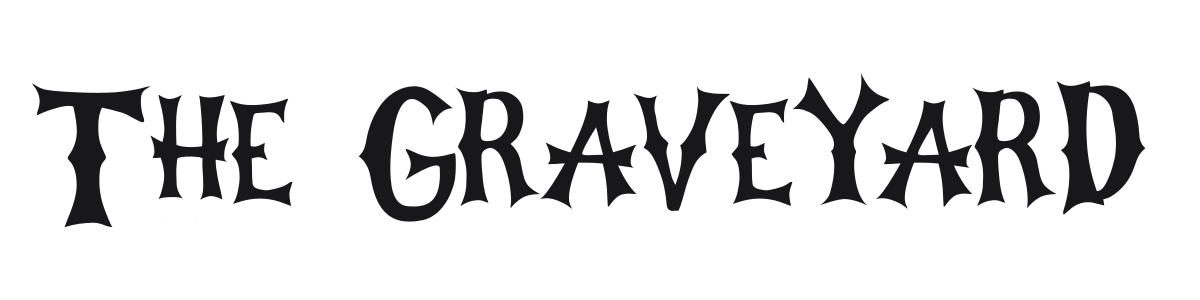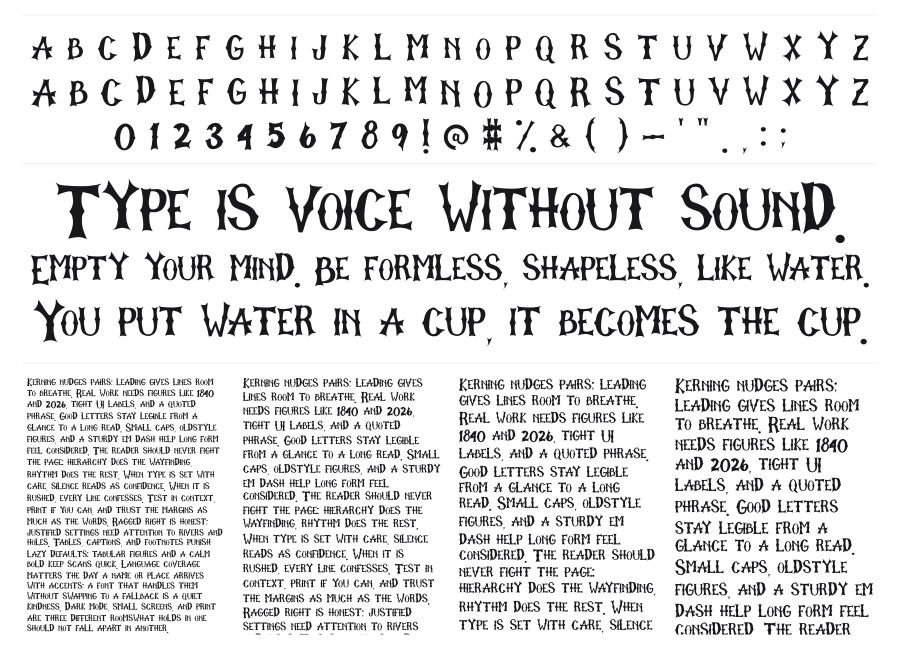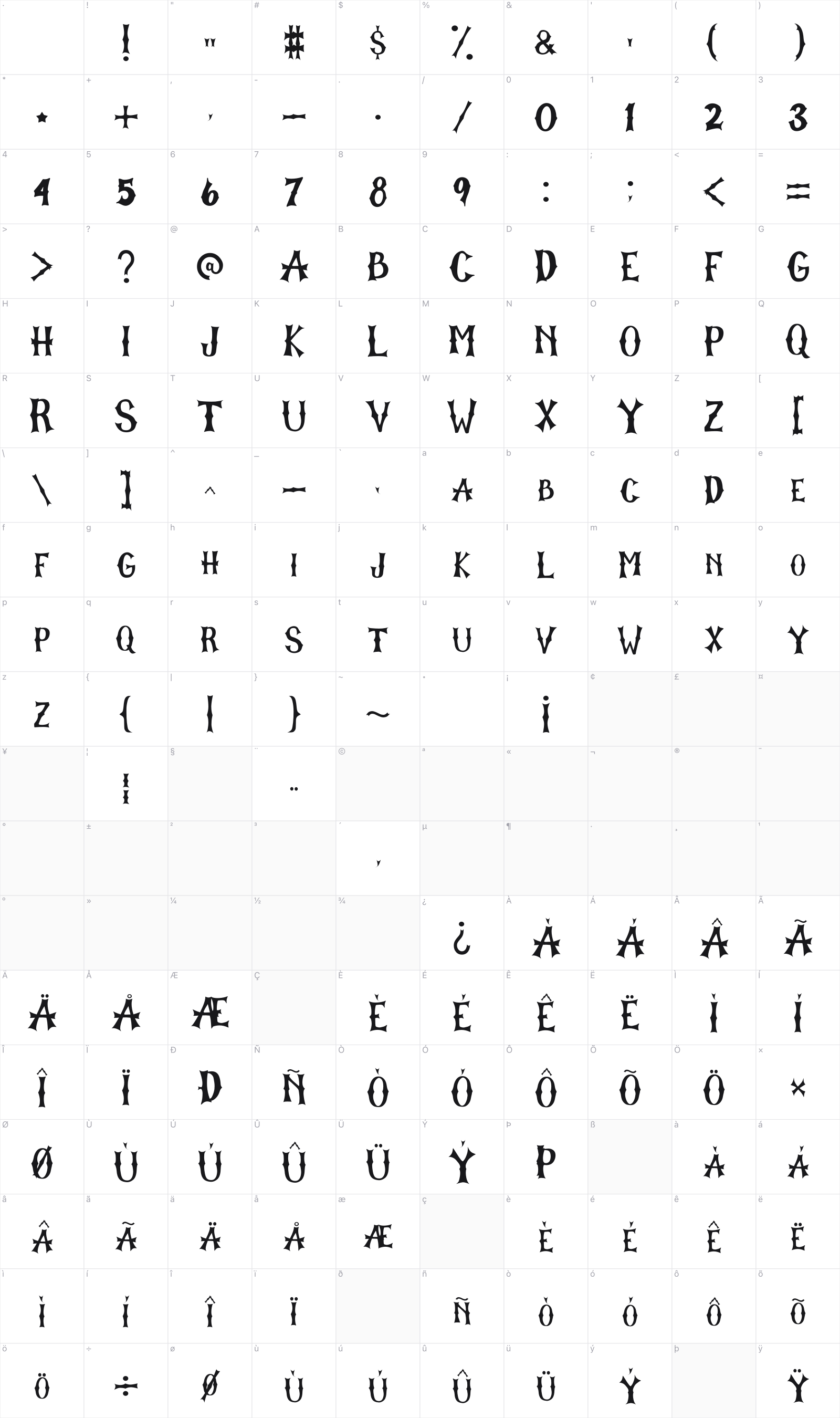
The Graveyard
The Graveyard is a spooky display serif built for Halloween and horror aesthetics, with bold strokes, jagged pointed terminals, and deliberately uneven characters that suggest weathered tombstone lettering. The high contrast between thick stems and needle-sharp thin strokes gives it a theatrical, menacing quality. Strong at large sizes for posters, titles, and seasonal branding.